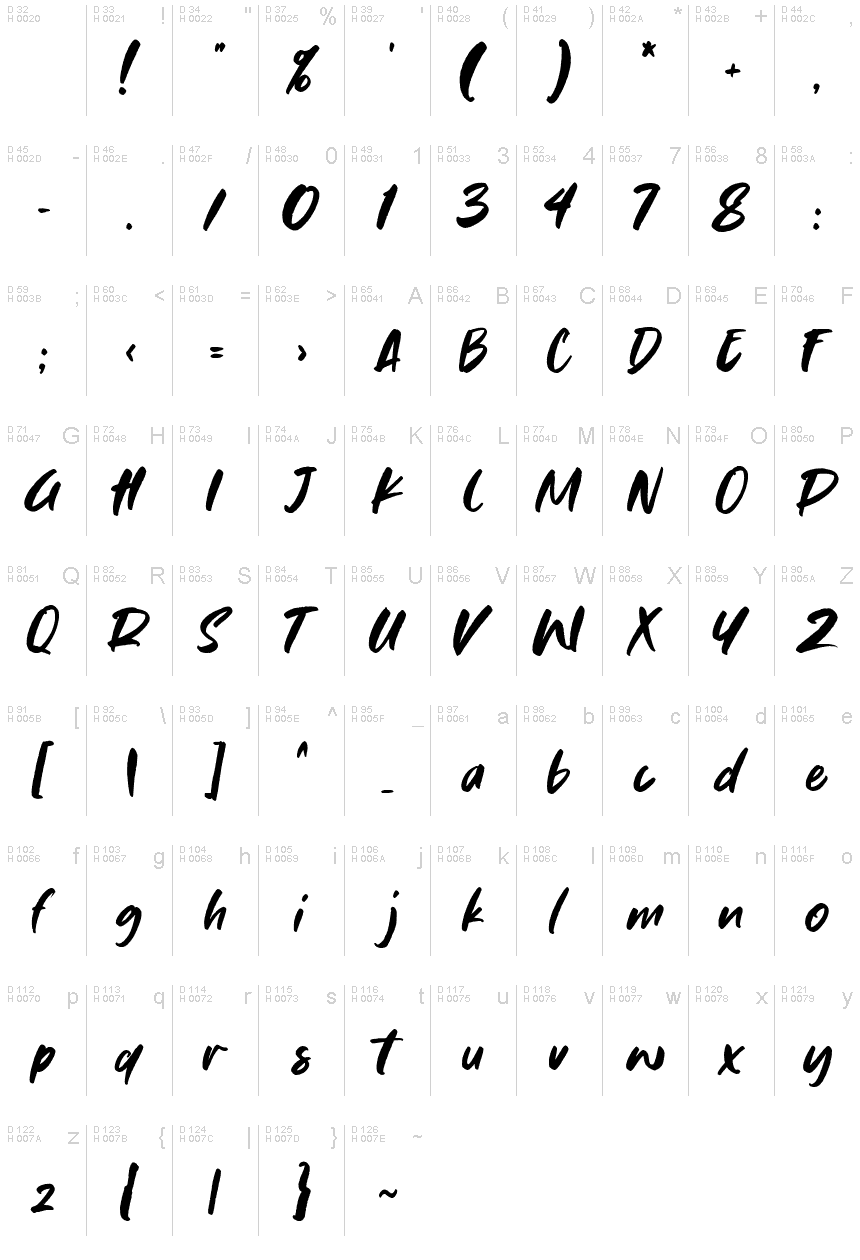
Minomisse
Minomisse, a playful handwritten font crafted by Gassstype, brings the authenticity of brush strokes straight to your creative canvas. Its dramatic movement and casual quickness infuse every design with a modern and fun vibe, perfect for those projects that demand a touch of spontaneity. With its elegant flow and natural look, this font transcends mere text, becoming an expressive element in its own right.
Whether you're designing posters that pop or seeking that special touch for packaging and labels, Minomisse is the go-to choice for designers who want their work to stand out. It's equally at home in digital spaces like websites and photography overlays as it is in scrapbooking or greeting card messages. The versatility of Minomisse makes it an indispensable font for creatives looking to add a genuine handwritten feel to their projects with an air of sophistication.